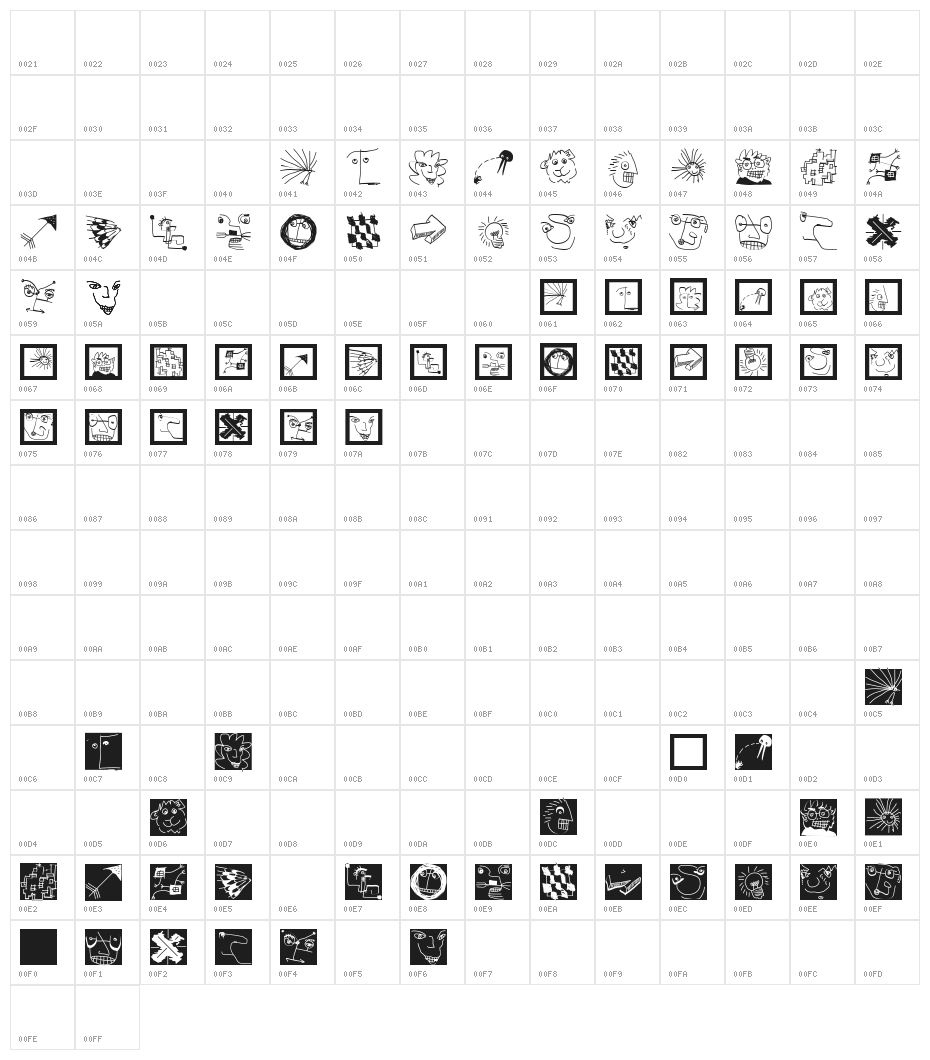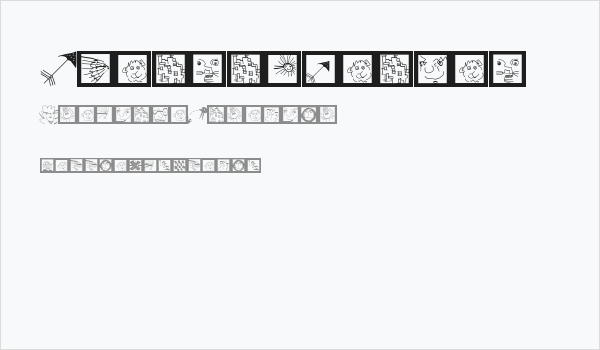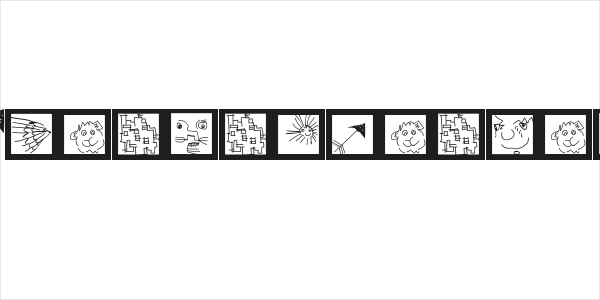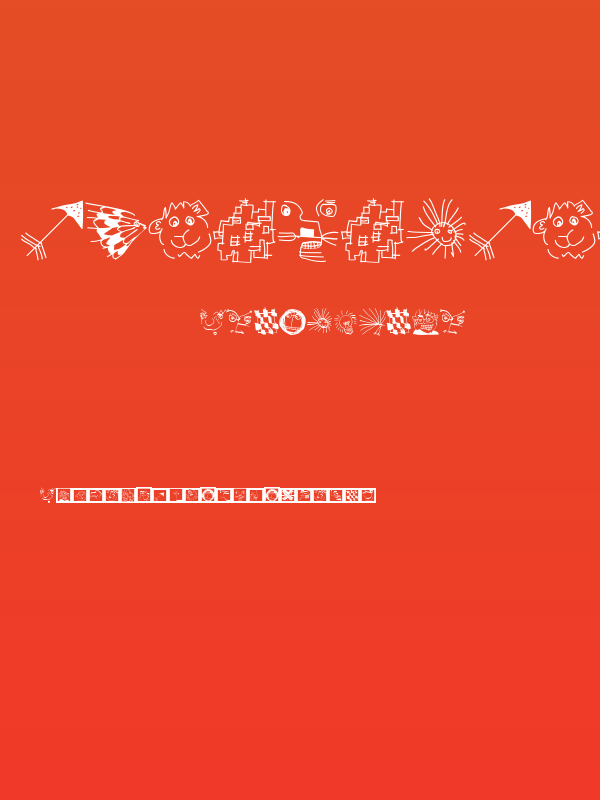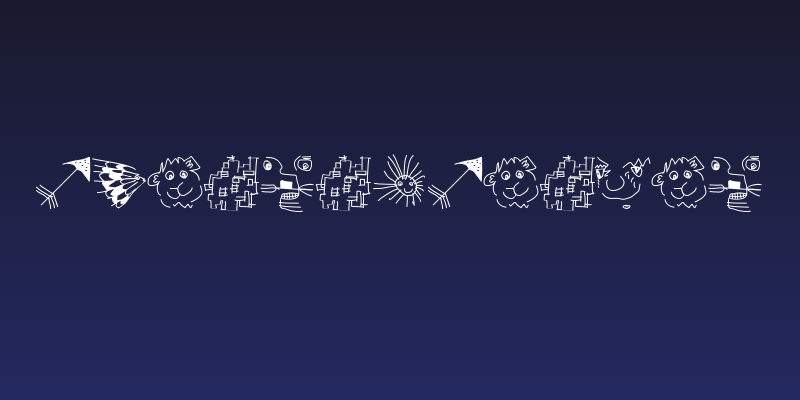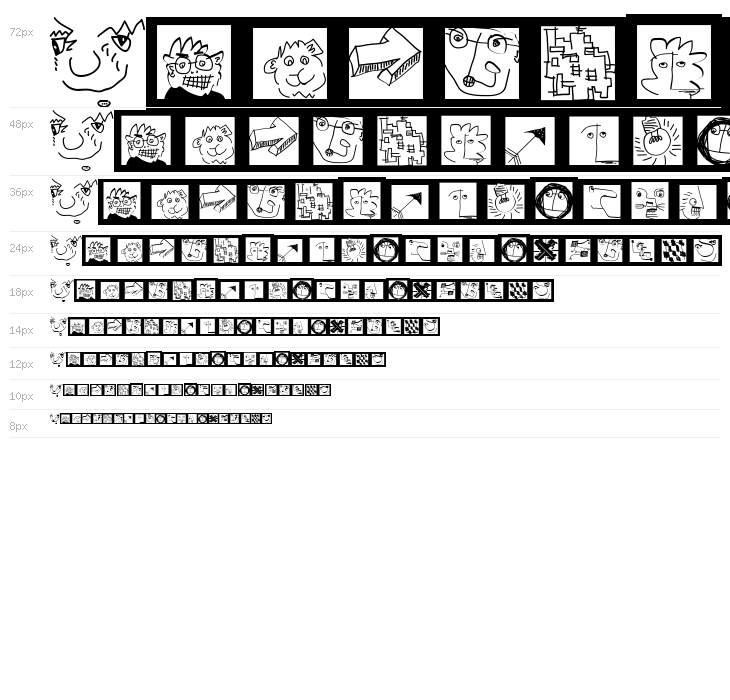
Kleinigkeiten Font
Kleinigkeiten Description
This is a highly decorative and whimsical font that features playful, cartoon-like characters. Each letter is represented by a unique, hand-drawn illustration that incorporates elements of humor and creativity. The designs are intricate, with a variety of shapes and expressions that give the font a lively and animated feel. This font is not suitable for traditional text but serves as a creative and artistic expression, making it ideal for projects that require a fun and engaging visual element.
| Use Case | Logos, Posters, Artistic Projects |
| Proposed Projects | Ideal for children's books, playful posters, creative invitations, and any project that benefits from a fun and artistic touch. |